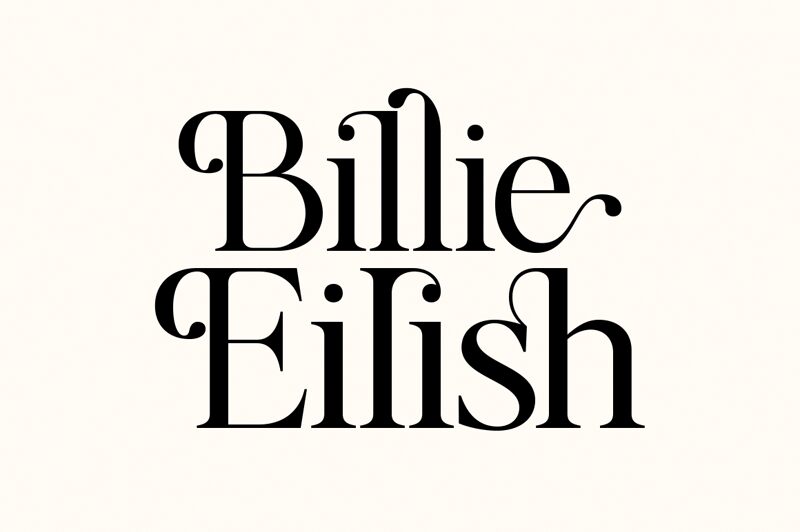
Billie Eilish is a serif font meticulously crafted by Zane Studio, a creation that exudes sophistication with its semi-light weight. Its elegant contours and subtle contrast in stroke thickness make it a visually stunning choice for an array of creative endeavors. The gentle serifs and refined curves lend the font a contemporary yet timeless allure, offering designers a versatile tool for projects demanding both readability and stylistic flair.
This typeface stands out with its distinctive character shapes, which balance classic serif elegance with modern design sensibilities. Perfect for editorial work, branding, or any project where design integrity is paramount, the Billie Eilish font is sure to captivate audiences with its unique aesthetic appeal. Whether employed in print or on screen, this serif marvel from Zane Studio promises to infuse your creations with an understated grace that resonates across diverse mediums.